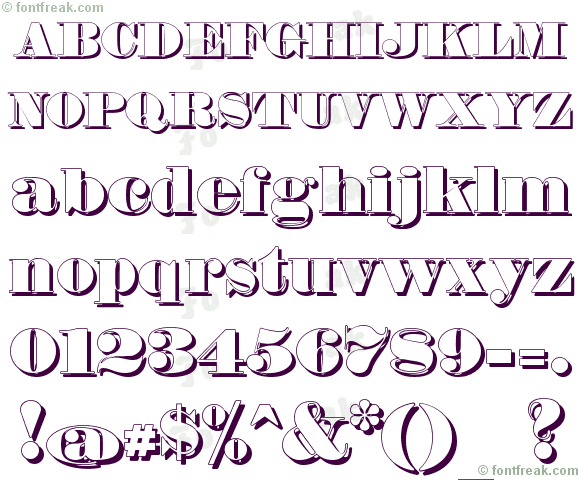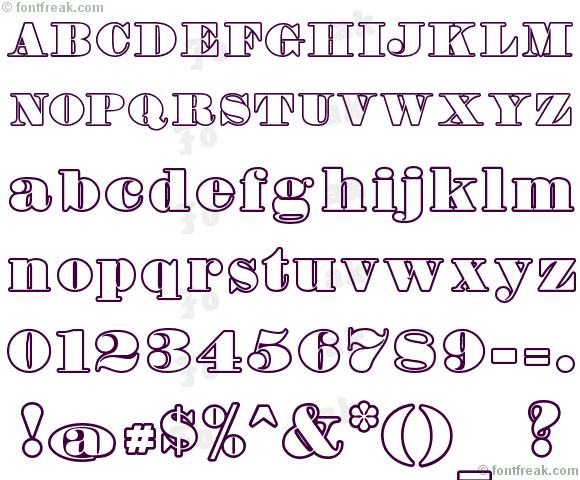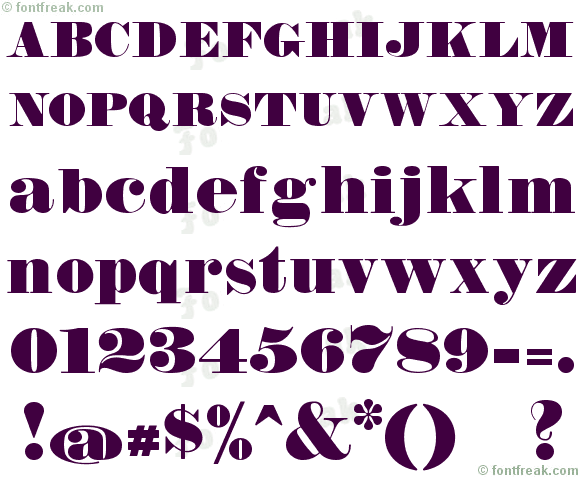
Fette Bauersche Antiqua UNZ Pro
Fette Bauersche Antiqua Shaddow UNZ Pro
Fette Bauersche Antiqua UNZ Pro Hollow
About Fette Bauersche Antiqua UNZ Pro
Fette Bauersche Antiqua UNZ Pro is a striking serif font designed by Peter Wiegel, offering a unique blend of classical elegance and modern readability. This font is categorized as a display typeface, characterized by its bold stroke weight and high contrast between thick and thin lines. The carefully crafted letterforms showcase decorative elements that add a touch of sophistication, making it an ideal choice for a variety of design projects. The spacing is well-balanced, ensuring legibility while maintaining a visually appealing aesthetic.
This font is particularly well-suited for use in wedding invitations, where its refined style can enhance the overall elegance of the design. Additionally, it works wonderfully for movie posters, capturing attention with its bold presence and unique flair. Restaurant menus can benefit from the font's classic appeal, making dishes stand out and inviting patrons to savor their dining experience. Graphic designers and content creators may also find it perfect for branding materials, helping businesses convey a sense of professionalism and style.
What sets Fette Bauersche Antiqua UNZ Pro apart is its ability to blend timeless design with contemporary versatility, making it a go-to choice for those seeking a bold yet elegant typeface. With its distinctive character and wide-ranging applications, this font is sure to enhance any creative endeavor.